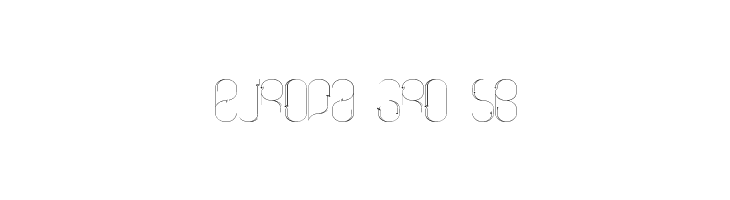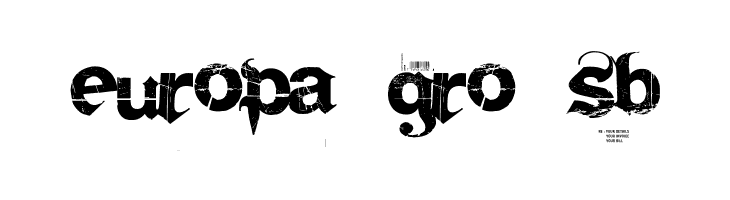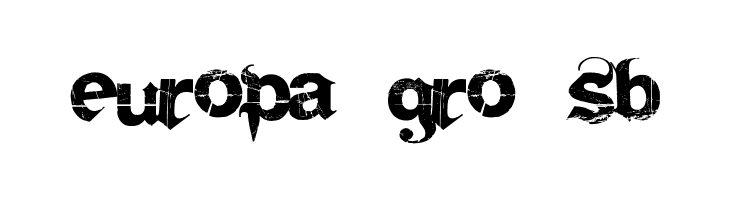
A bold, geometric font with a modern and decorative style.
A bold, distressed font with a grunge texture, ideal for impactful designs.
A modern, futuristic font with thin lines and rounded edges.
A bold, distressed blackletter-style font with a vintage, grunge aesthetic.
A bold, distressed font with a vintage, grunge aesthetic.
A modern, geometric monospaced font with a clean and structured design.
A clean, modern sans-serif font with geometric structure and uniform width.